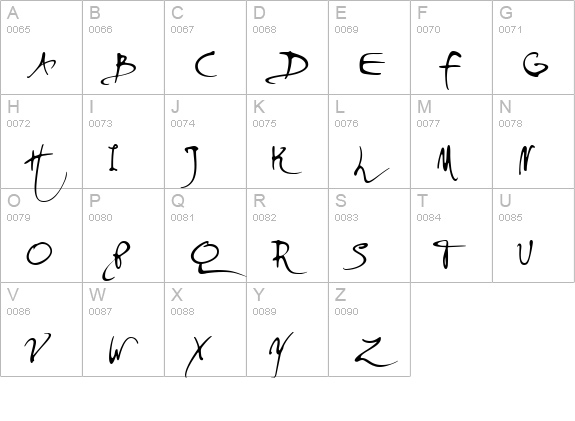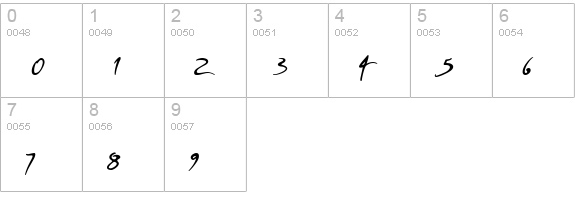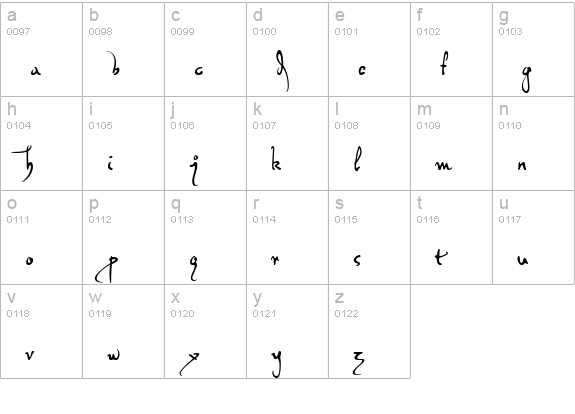
PFDaVinciScriptPro-Regular is the standard, neutral variant in the PFDaVinciScriptPro typeface family \xE2\x80\x94 well suited to general body text, paragraphs, and standard typographic work.
PFDaVinciScriptPro-Regular font is a beautifully crafted typeface that exudes elegance and sophistication. With its smooth and flowing strokes, this font brings a touch of class to any design project. Whether you're creating wedding invitations, branding materials, or editorial layouts, PFDaVinciScriptPro-Regular will add a touch of charm and refinement. The best part? This stunning font is available for free download at FontsMarket.com. Don't miss out on the opportunity to elevate your designs with this exquisite typeface. Download PFDaVinciScriptPro-Regular today and add a touch of timeless elegance to your projects.